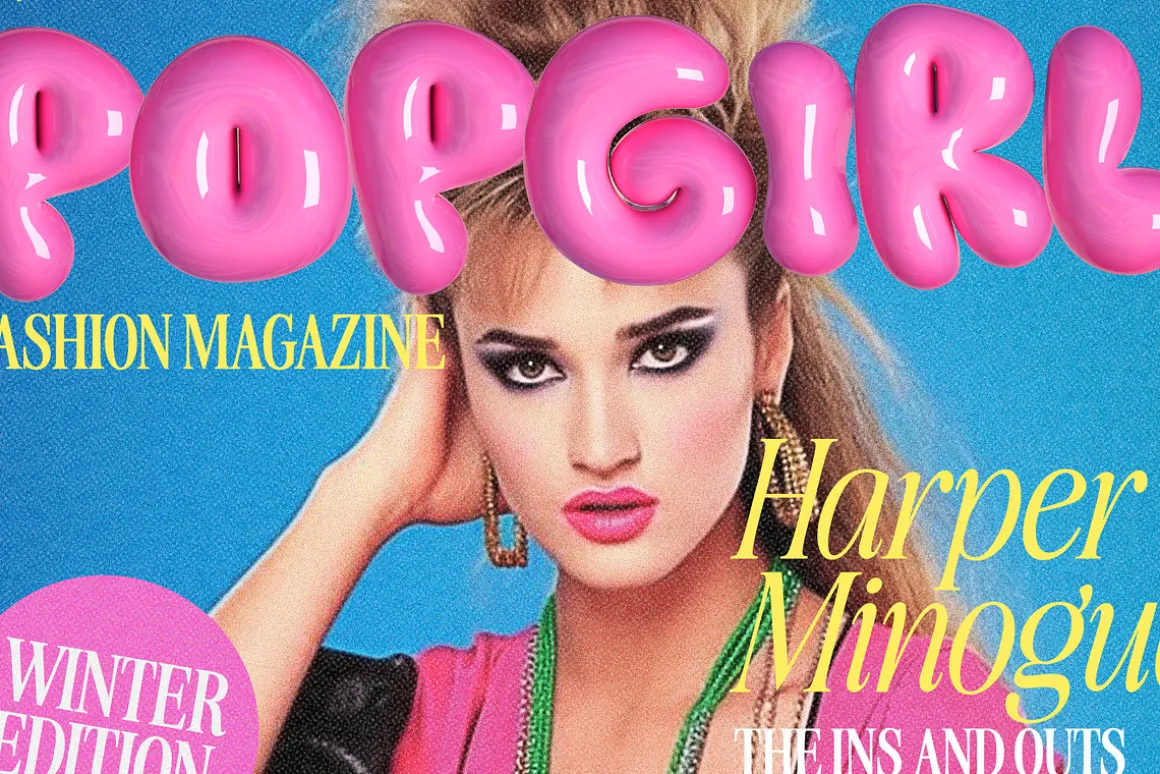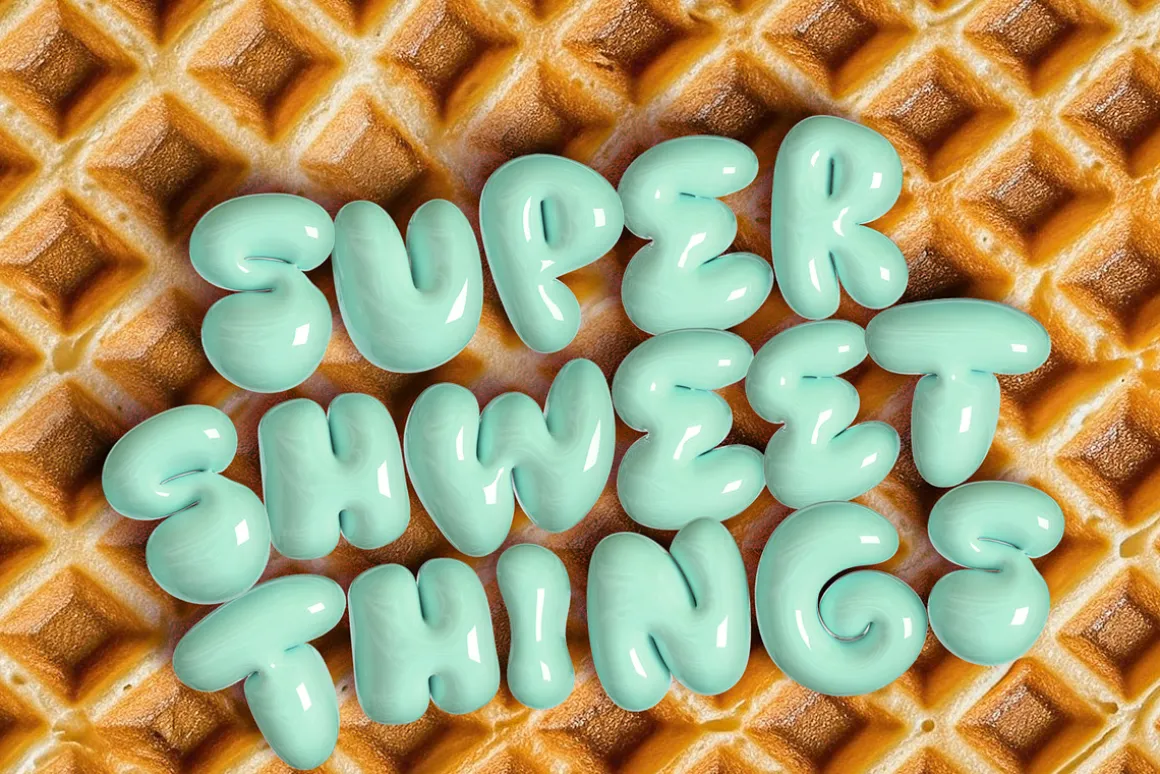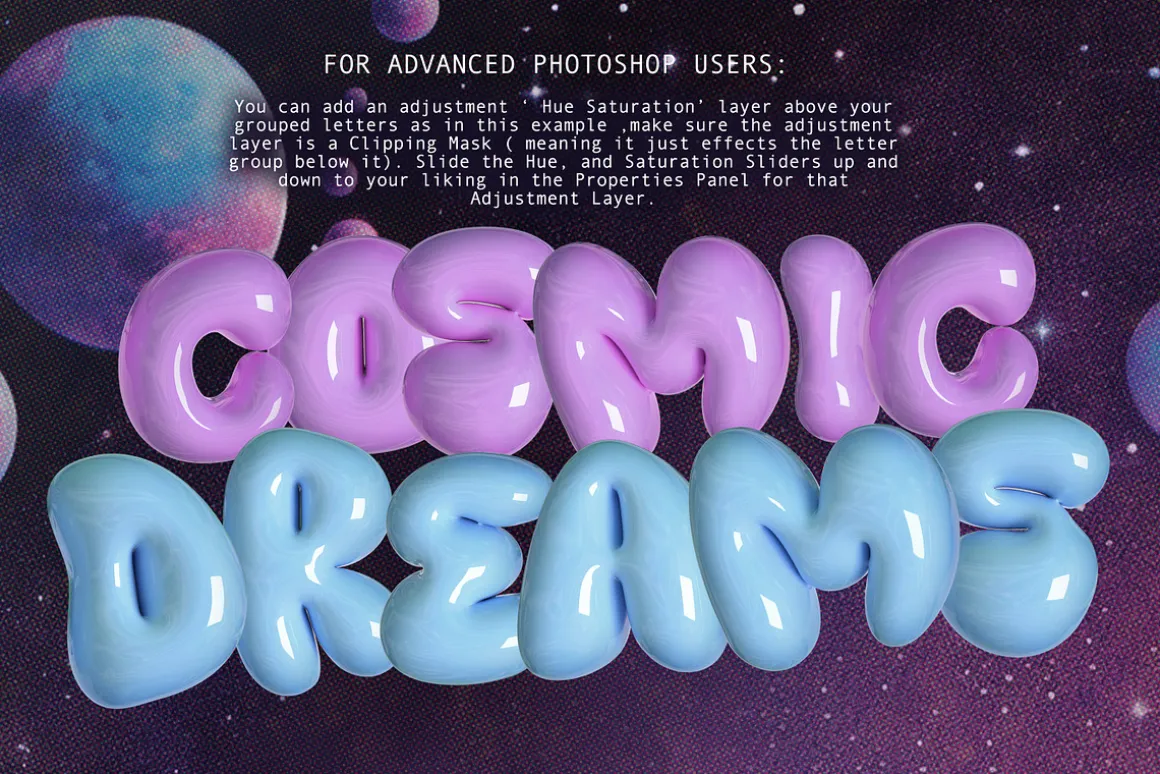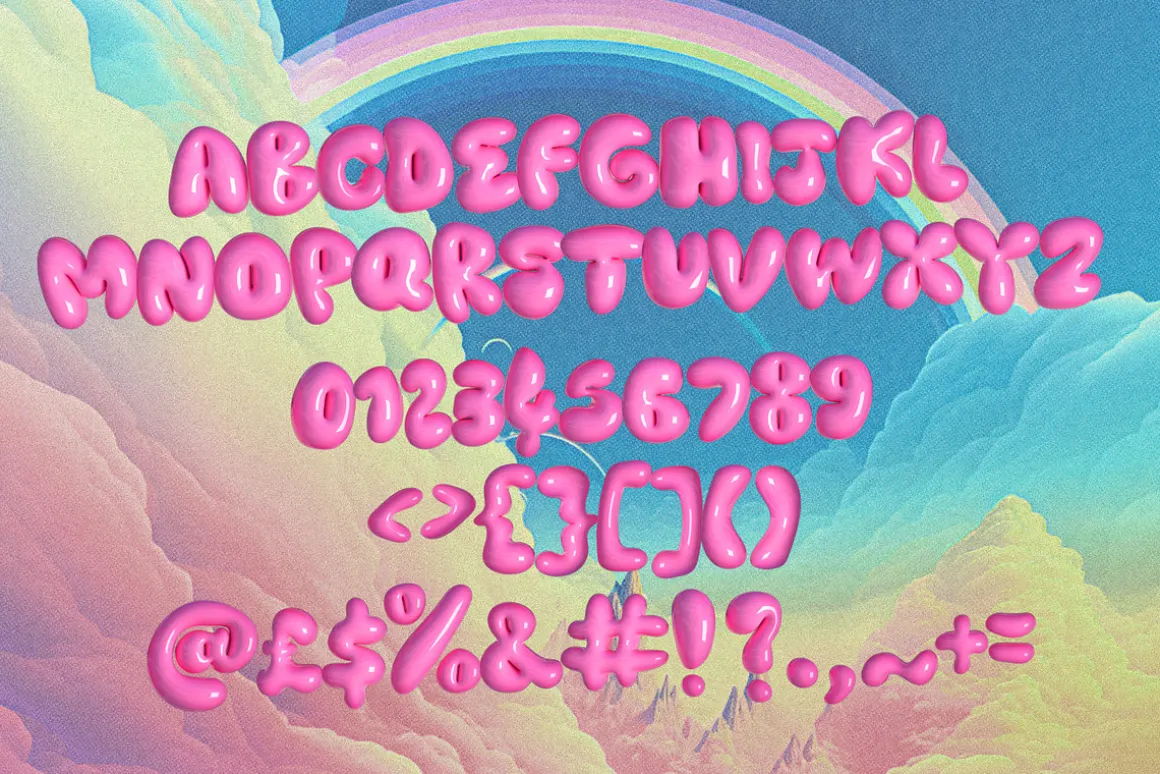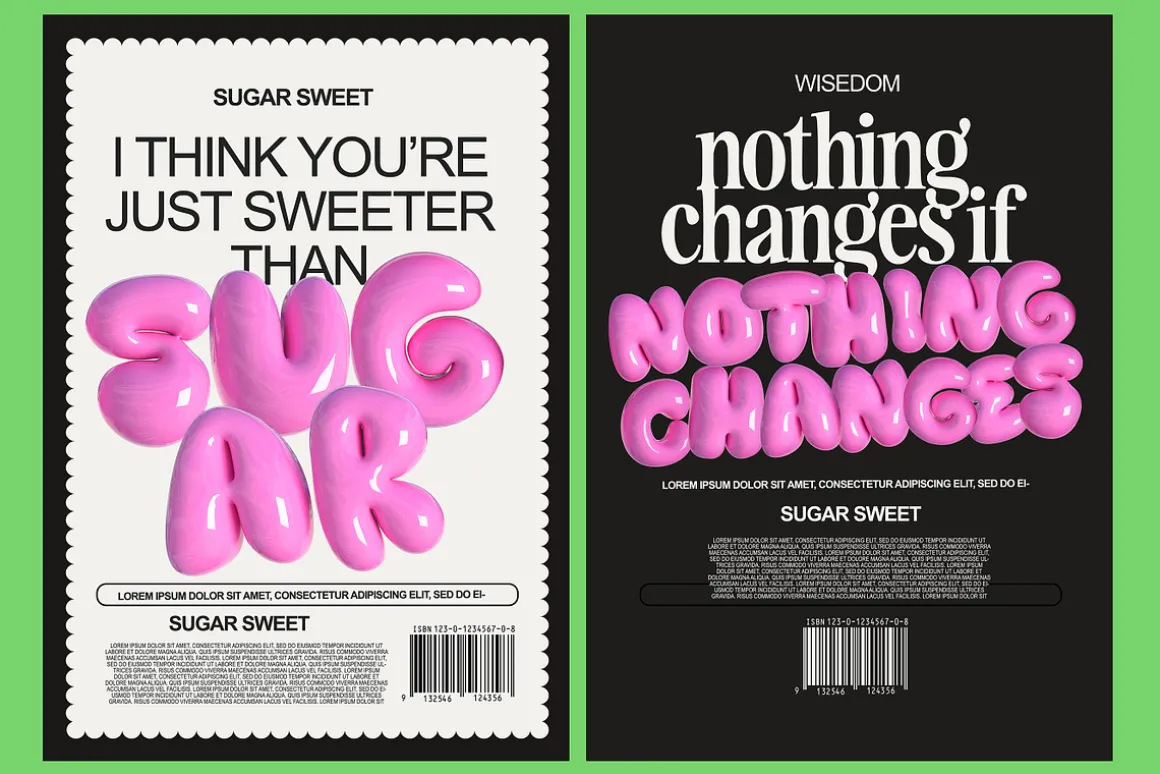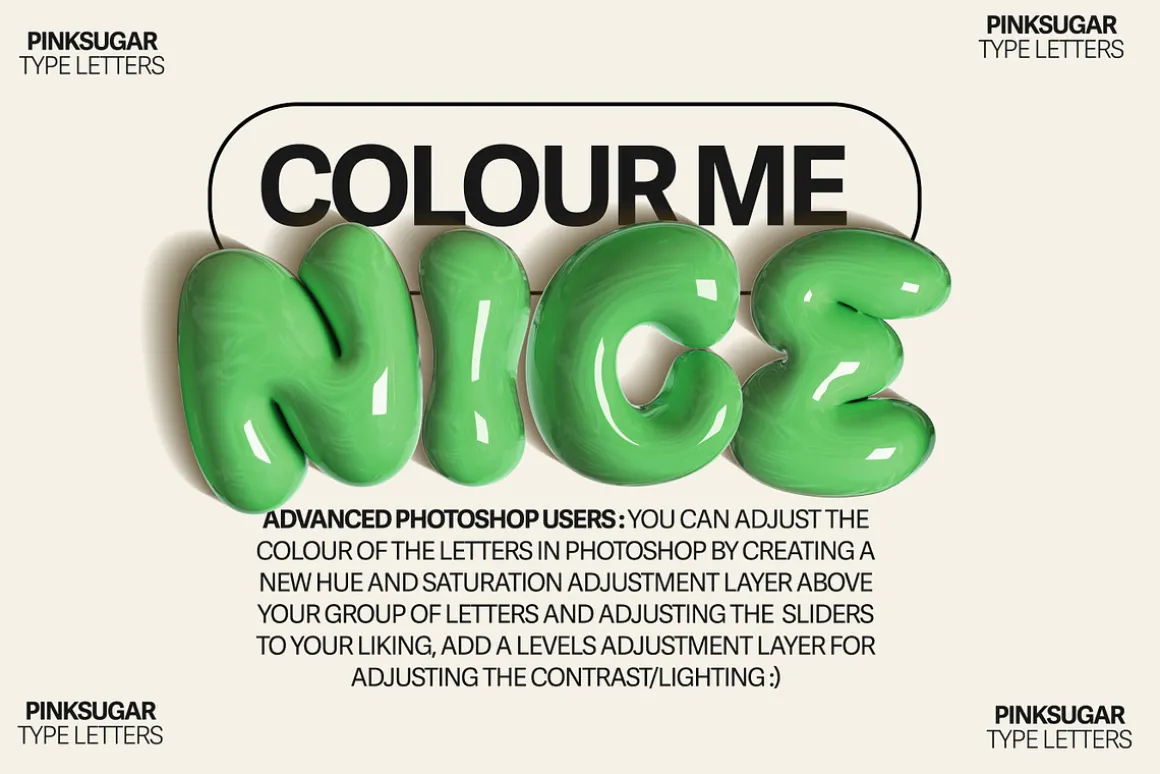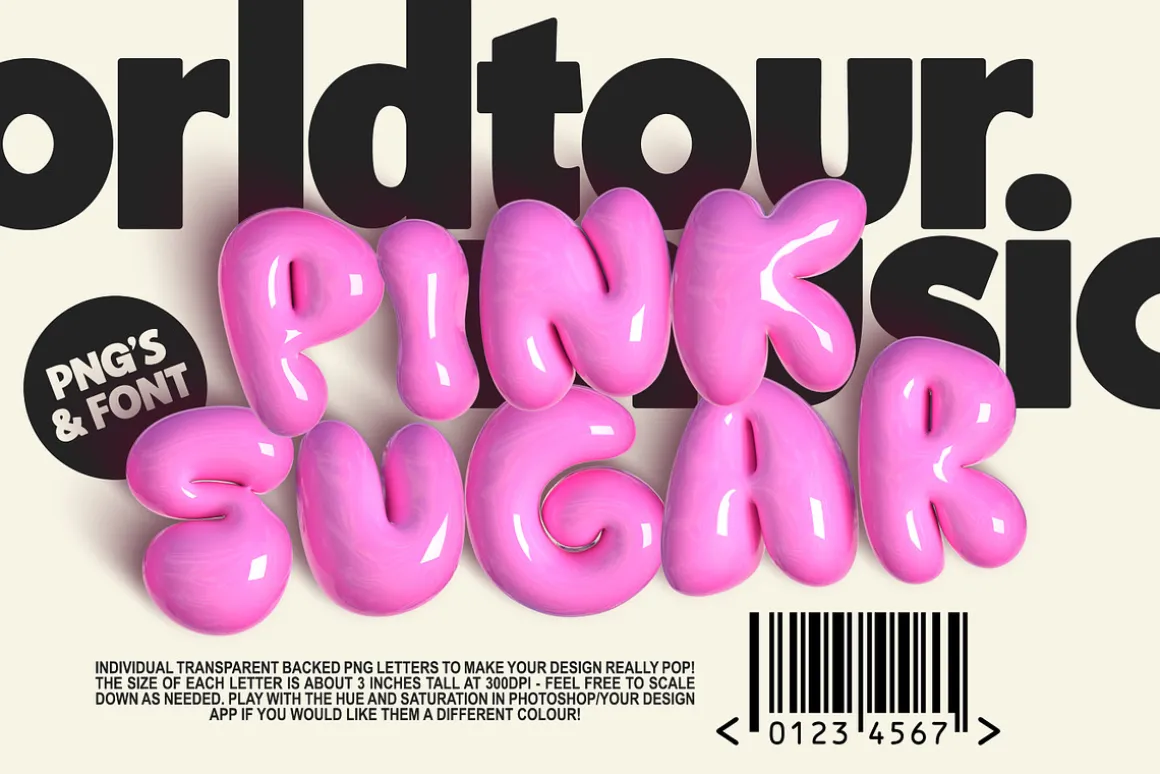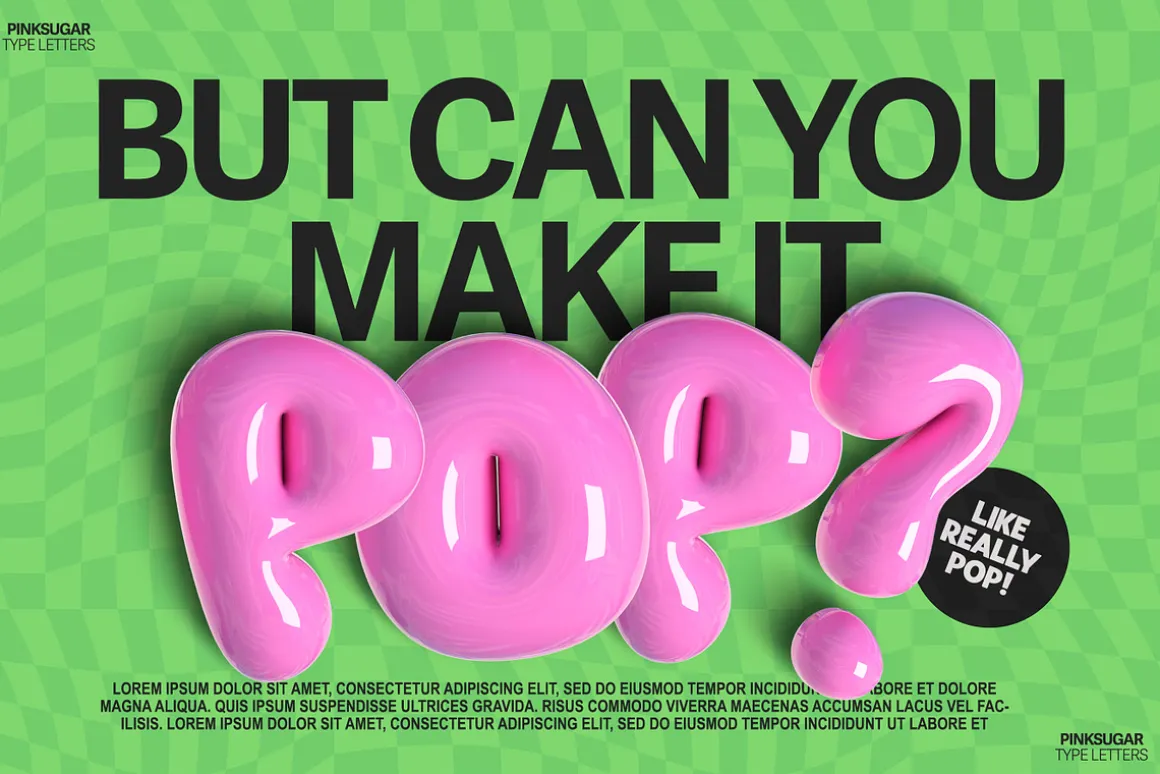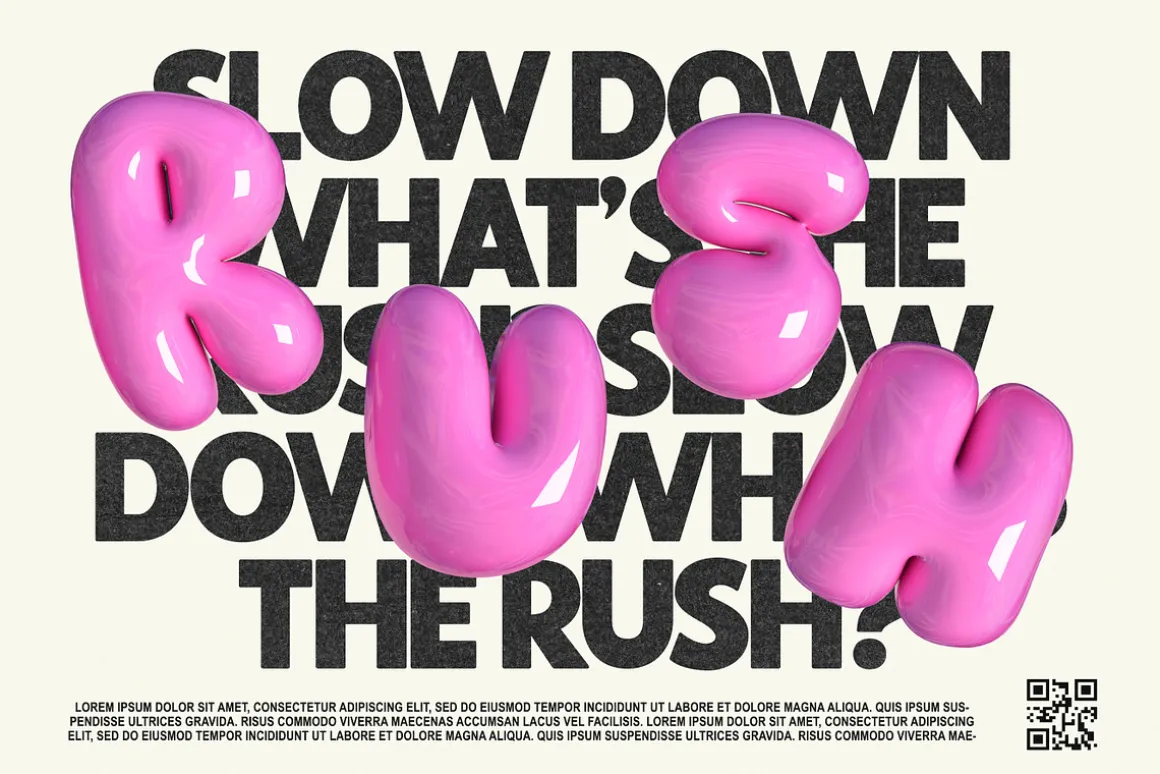
Make it POP 🙂
This pack includes a full character set of super shiny pink png 3D letters, and a matching SVG Bitmap font, although you’ll find the PNG letters more versatile( read more below ).
PNG’s VS SVG BitmapFont :
As mentioned above, I personally prefer using the PNG letters over the SVG font, as it allows more control over the letter placement and relative sizing – which adds extra playfullness to your whole type layout 🙂 The PNGs are also at a much larger resolution allowing you to use in High Resolution Print projects. Please note that both are Bitmap based, not Vector based.